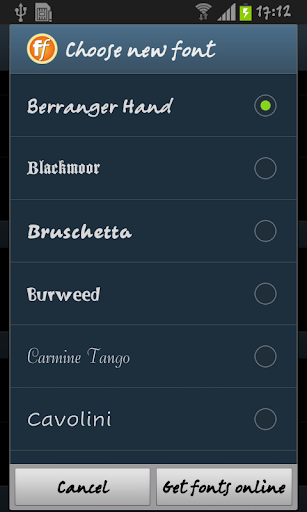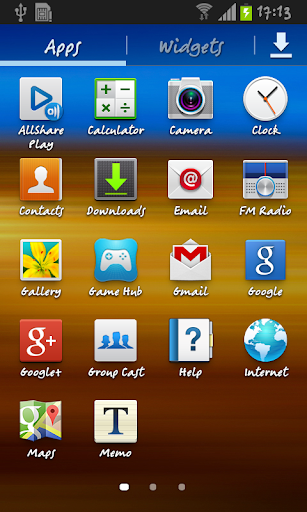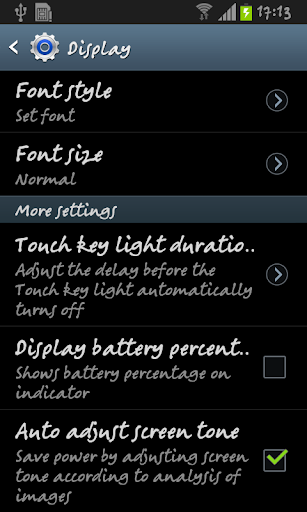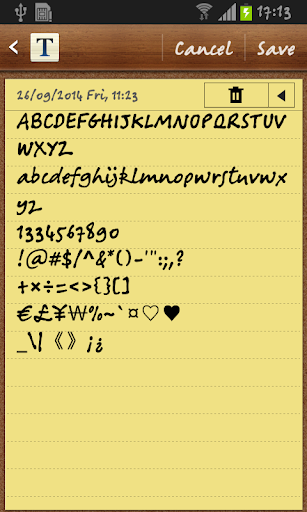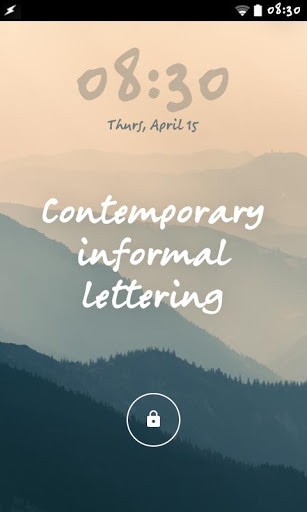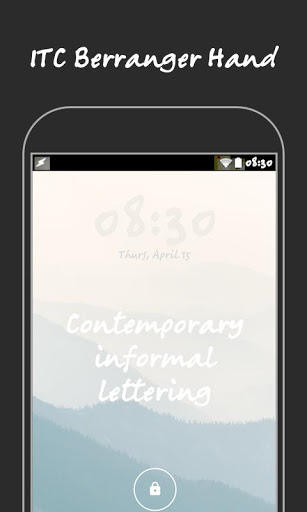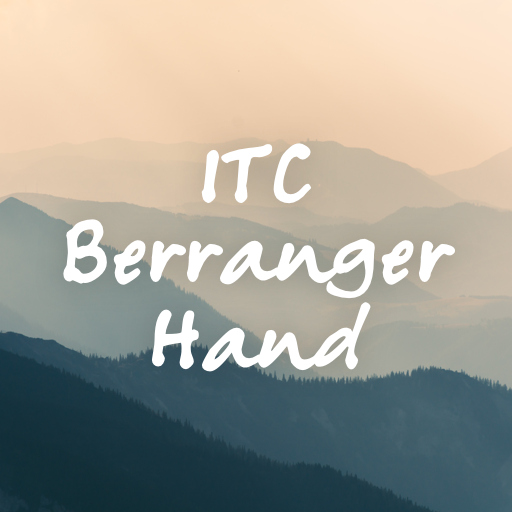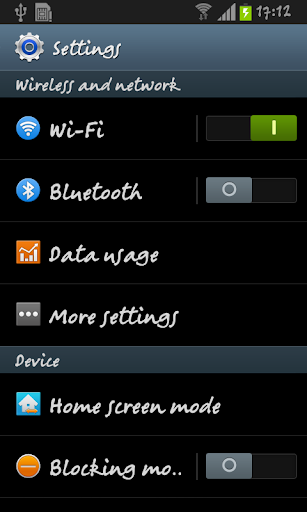
Berranger Hand FlipFont
FlipFont™ changes the user interface font on your phone.
Berranger Hand™ Latin FlipFont
The Berranger Hand™ font looks just like a felt-tip pen using a controlled casualness handwriting script.
Pan-European character set
supports Western, Central and Eastern European languages.